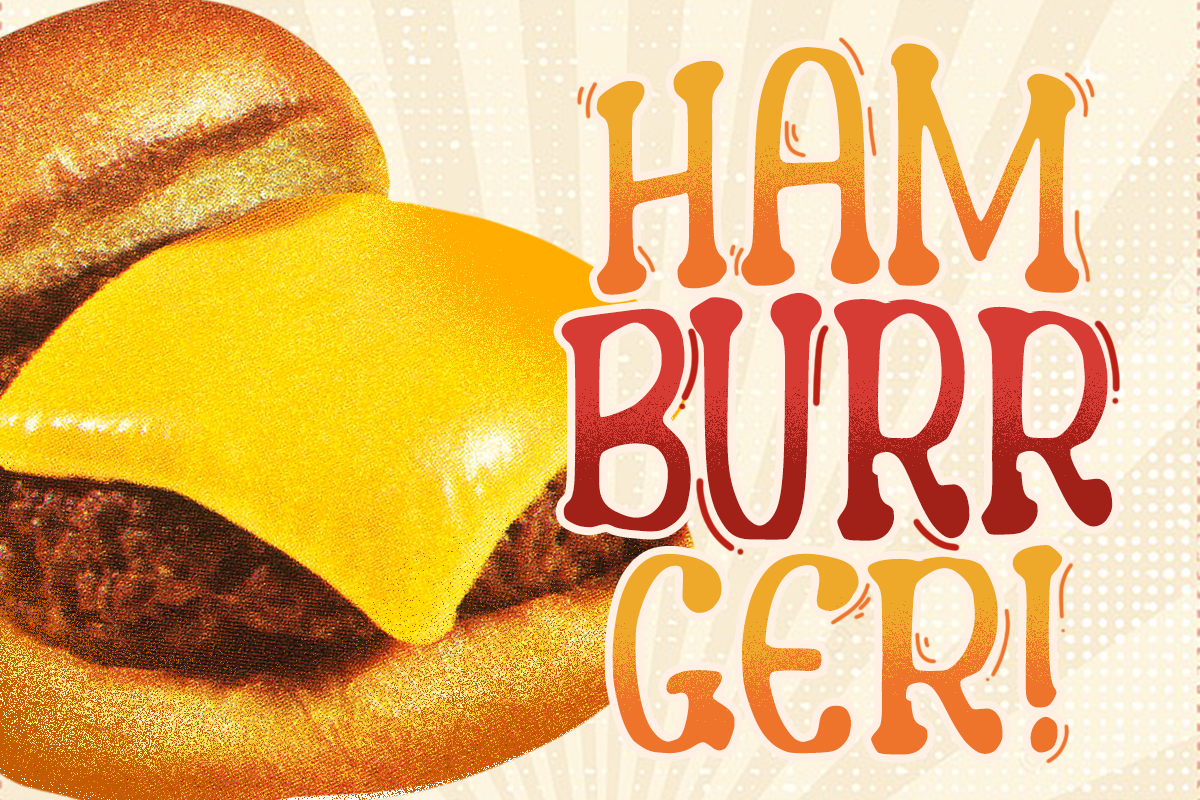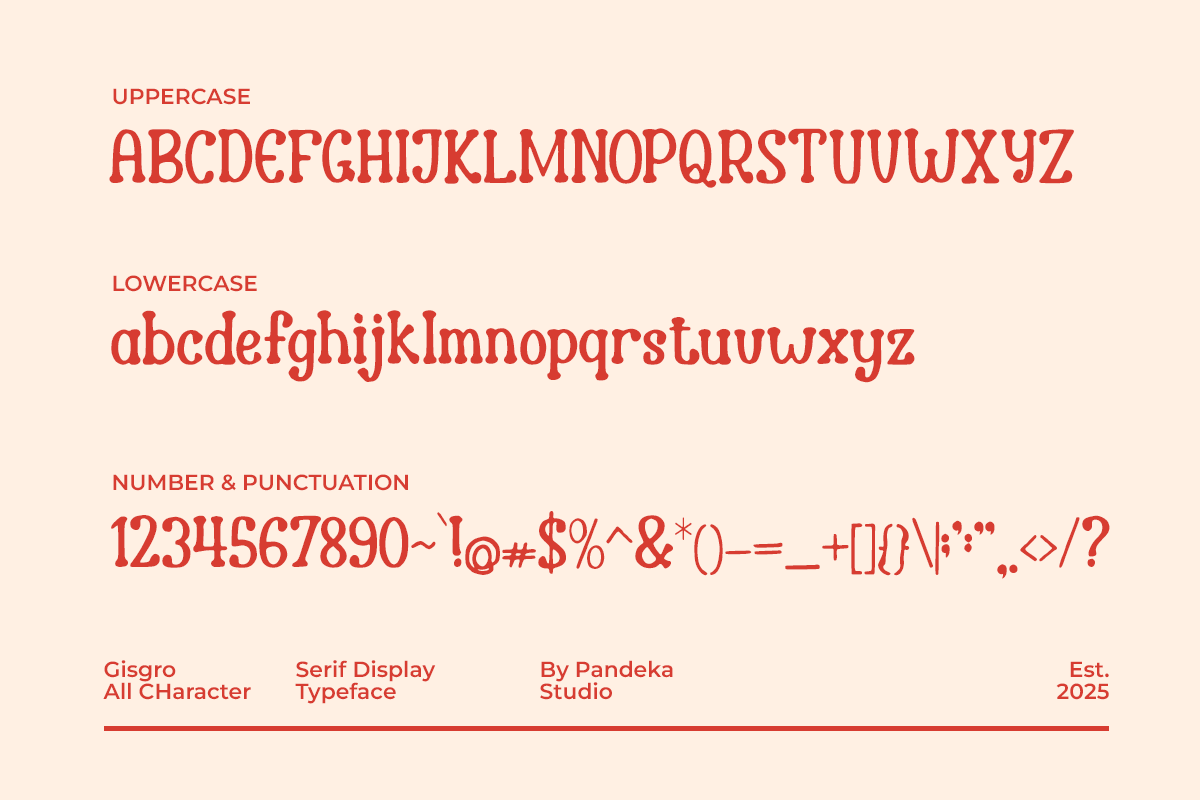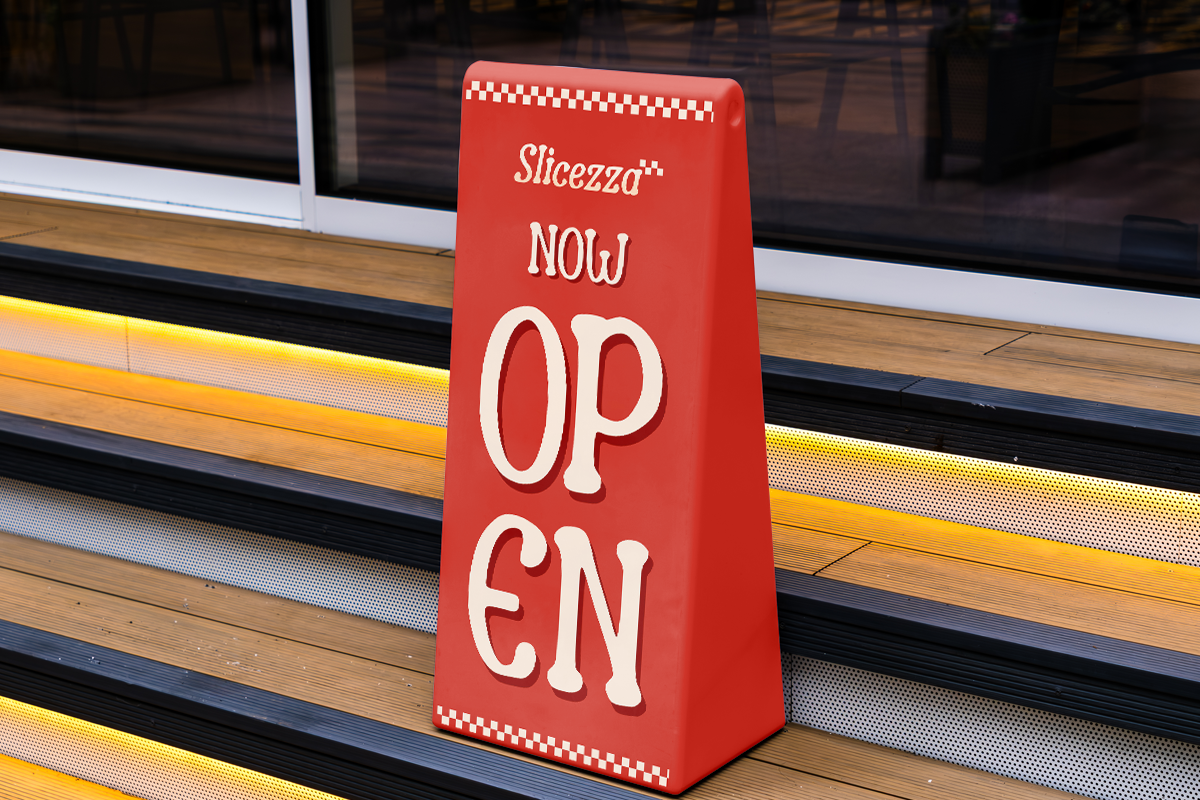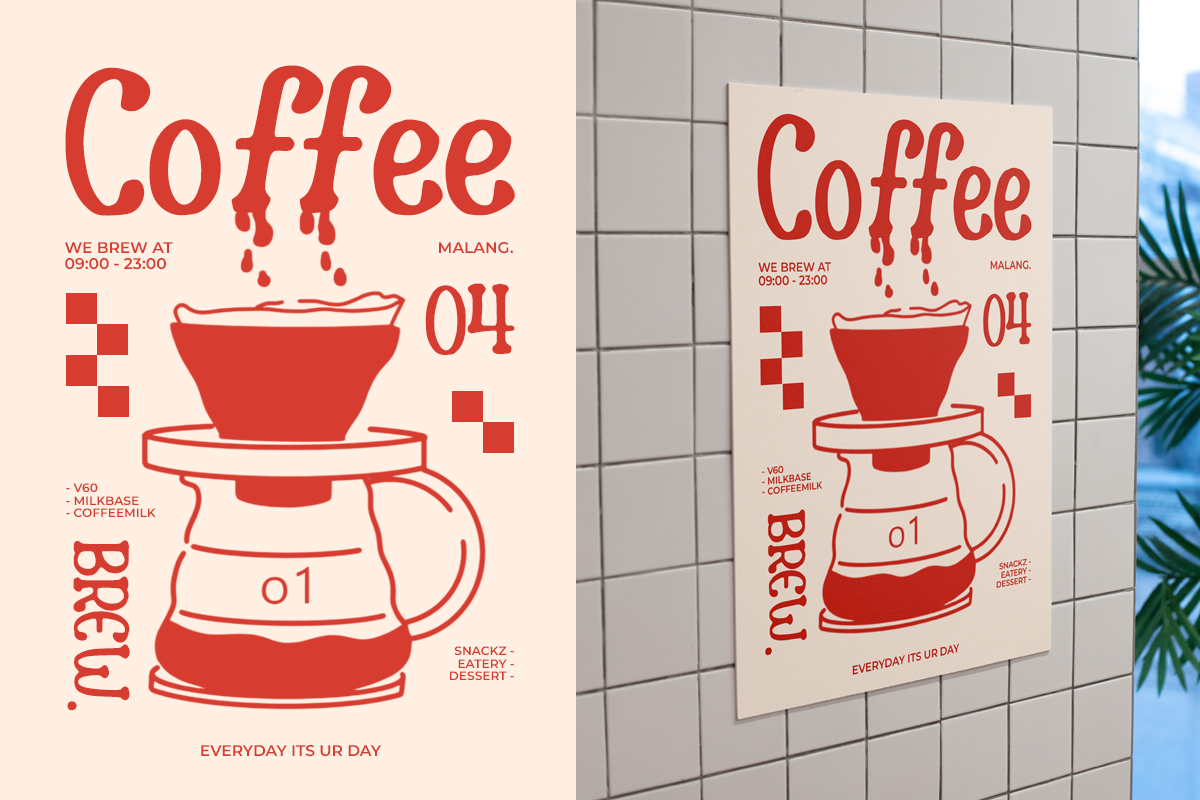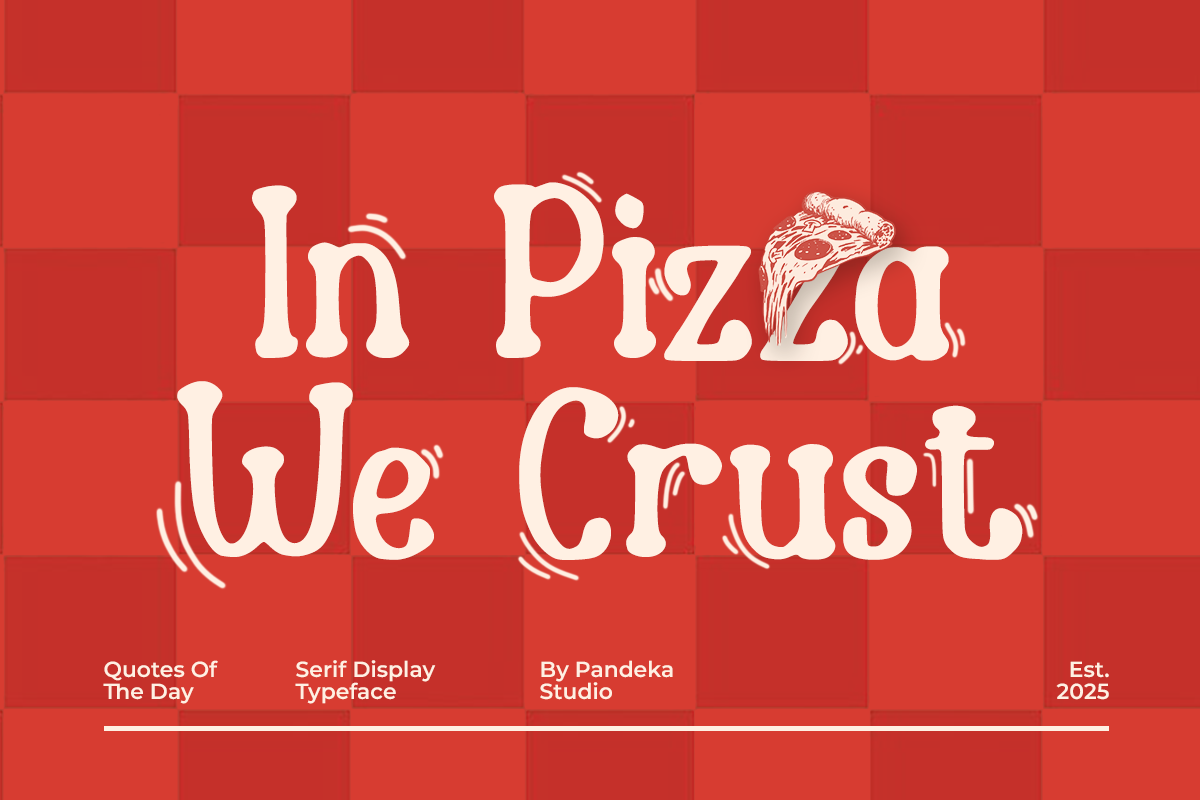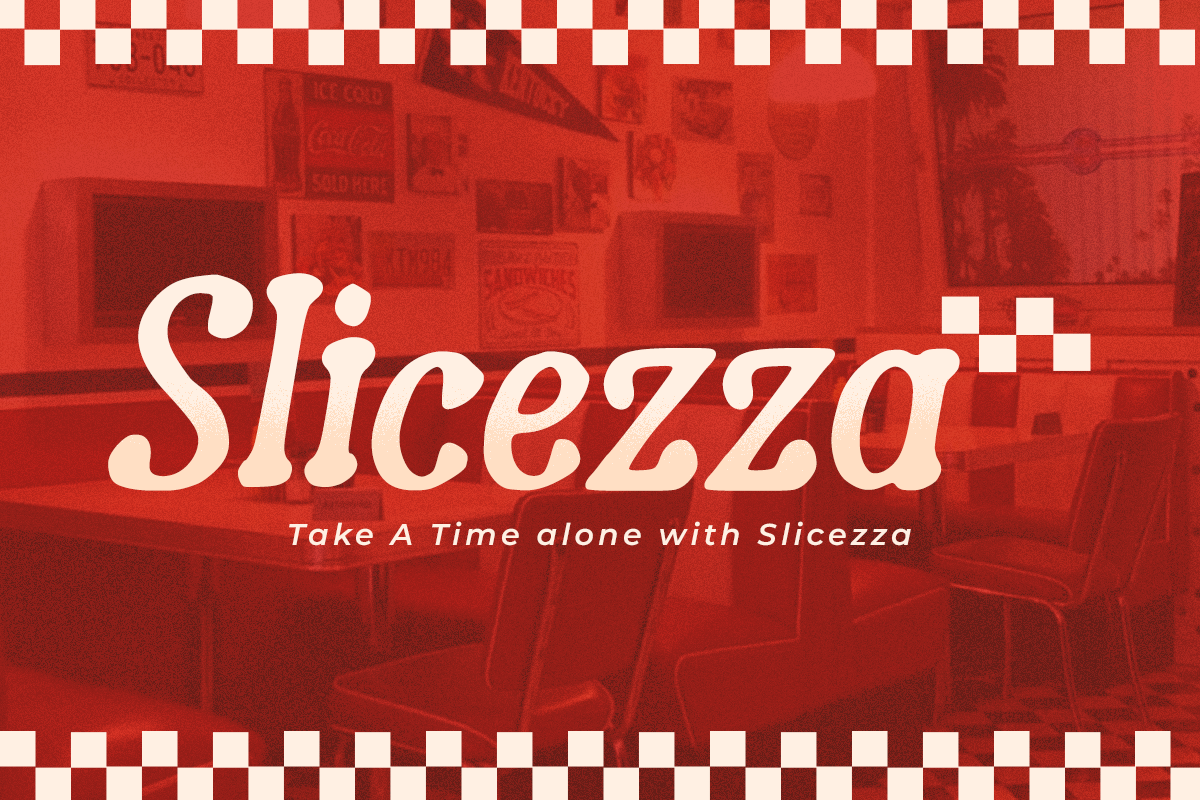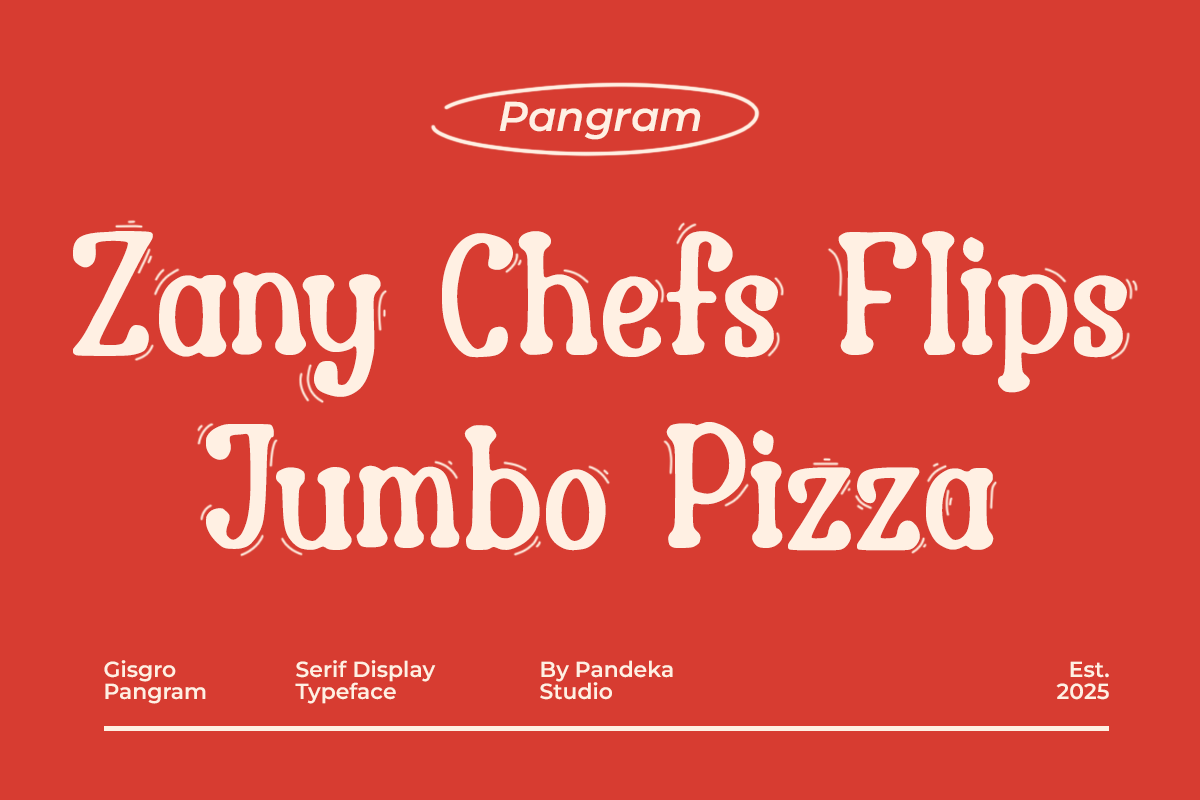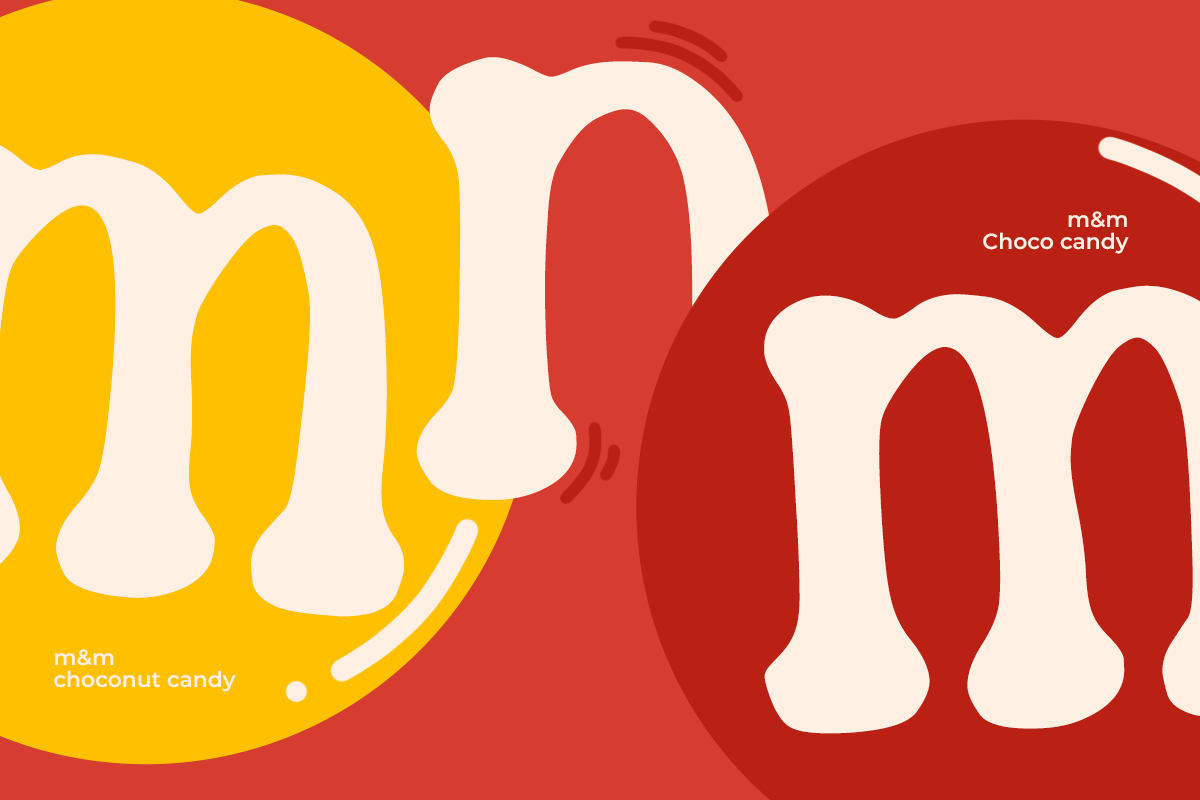
Gisgro - Playful Serif Display
Gisgro is a playful serif display font with chunky, bold characters and a fun vintage spirit. Perfectly suited for food branding, cafe posters, kids' designs, and retro-style promotions. Gisgro blends nostalgic curves with modern charm, making any project instantly eye-catching and cheerful. It includes uppercase, lowercase, numbers, and basic punctuation to bring life to your creative ideas.
- Full Character Set: Uppercase, lowercase, numbers, symbols, and punctuation